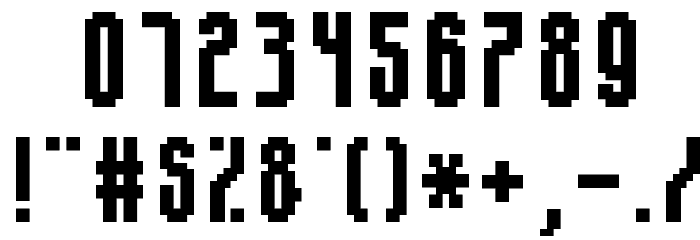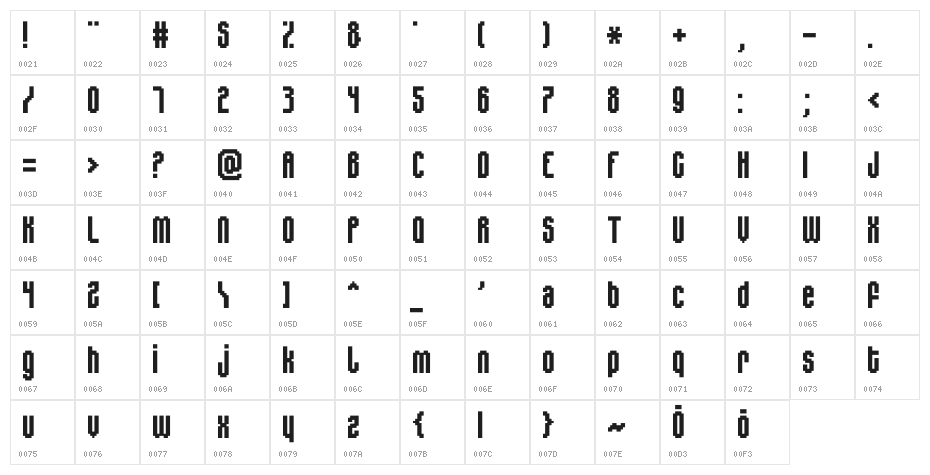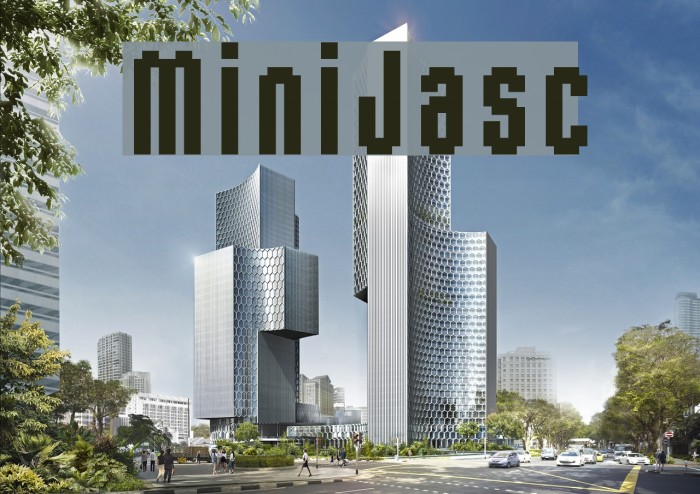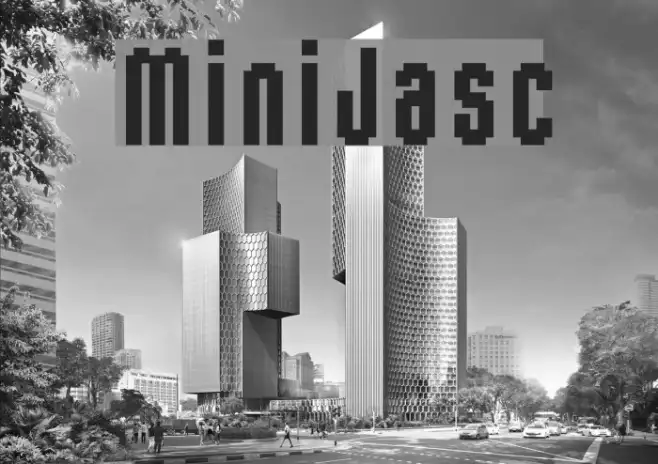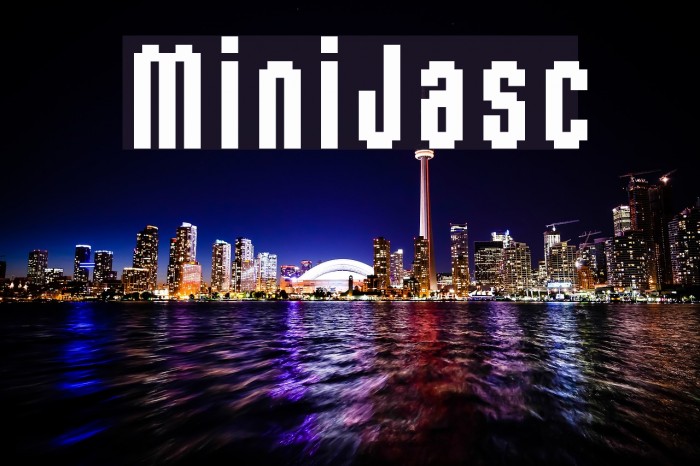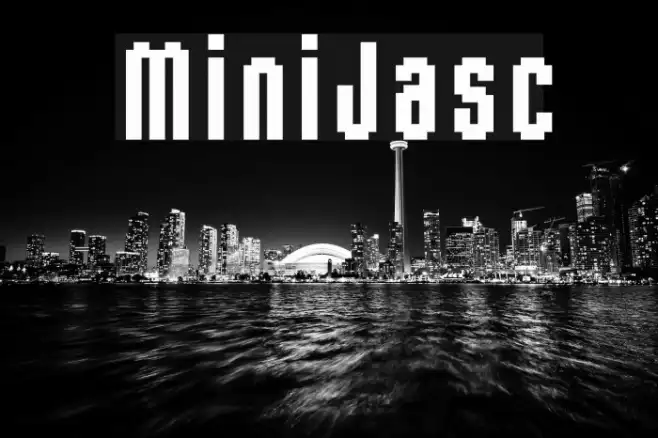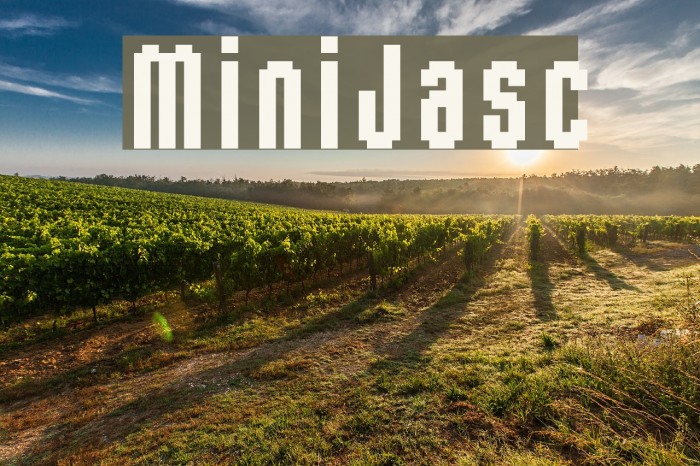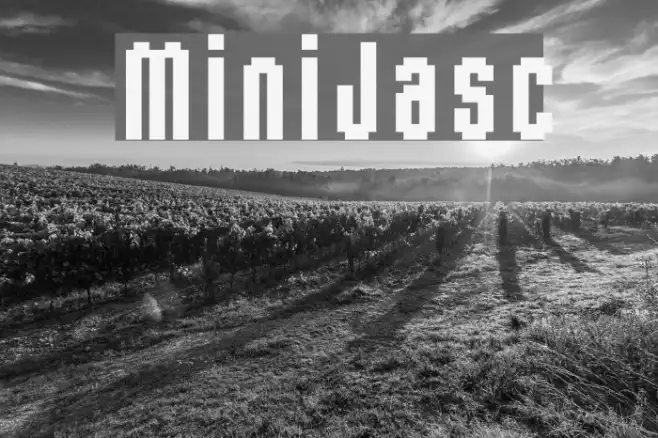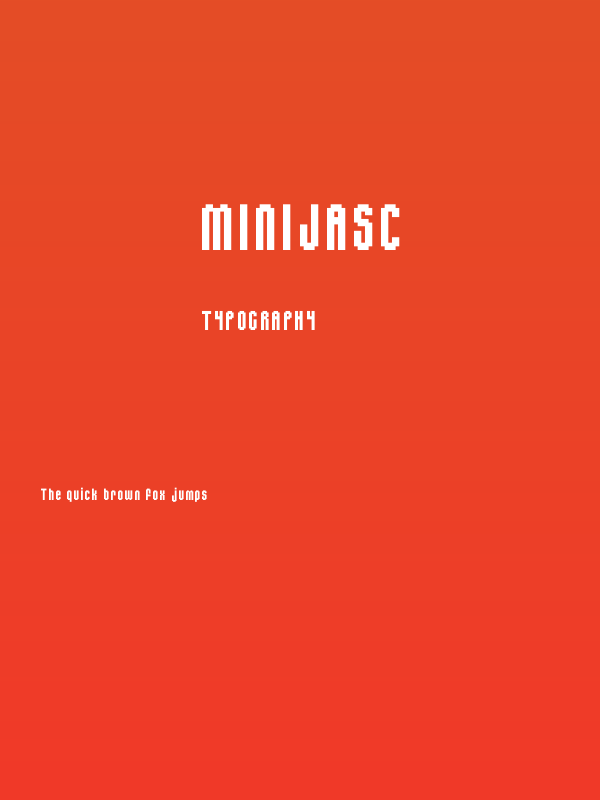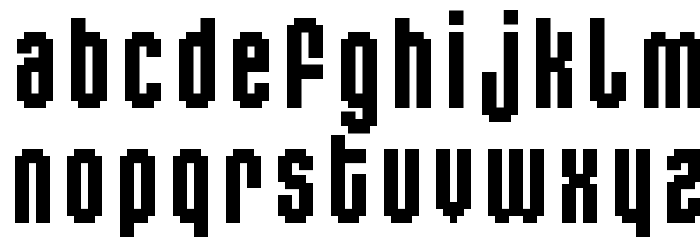
MiniJasc Font
MiniJasc Description
This font features a bold, pixelated style reminiscent of early digital and arcade aesthetics. Each character is composed of blocky, square shapes, creating a distinctly retro and geometric appearance. The uppercase and lowercase letters maintain a consistent height, contributing to a uniform look. The numerals and special characters follow the same design principles, ensuring cohesion across all glyphs. This font's design is straightforward yet impactful, making it ideal for projects that aim to evoke nostalgia or a vintage digital feel.
| Proposed Projects | Ideal for video game design, retro-themed posters, digital art projects, and any creative work that requires a nostalgic or vintage digital look. |